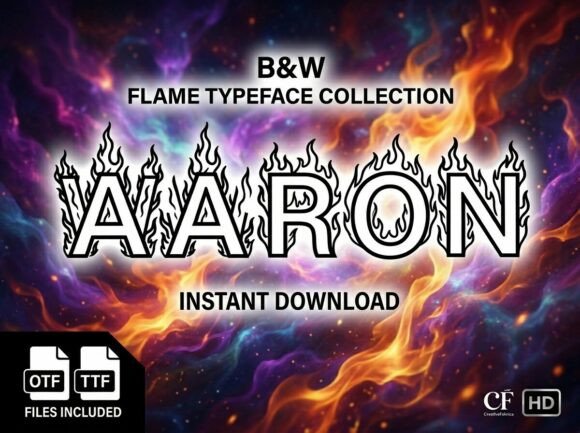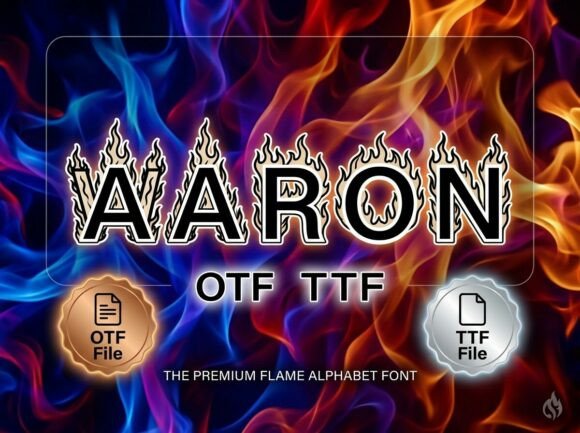
Ignite Your Designs with Aaron: The Ultimate High-Octane Display Font
In the world of typography, fonts play a crucial role in conveying the tone and personality of a brand or design. For designers and crafters looking to add a touch of intensity and energy to their work, Aaron Font is the perfect choice. This high-octane display font is engineered for pure intensity, making it ideal for extreme sports branding, independent rock tour posters, custom automotive graphics, and high-energy social media headers.
The Design Behind the Flame
Aaron Font features bold, blocky sans-serif letterforms that are engulfed in high-contrast, hand-drawn flickering flames. This unique design gives the font a “hot-rod-rebellion” soul that is sure to grab attention. The commanding silhouette of Aaron Font makes it perfect for designs that require a strong and powerful presence.
Key Features of Aaron Font
- Bold and Blocky Letterforms: The sans-serif letterforms of Aaron Font are designed to be bold and blocky, giving the font a rugged and edgy feel.
- High-Contrast Flames: The hand-drawn flickering flames that engulf the letterforms add a touch of intensity and energy to the font.
- High-Octane Performance: Aaron Font is engineered for pure intensity, making it perfect for designs that require a high-energy presence.
Use Cases for Aaron Font
Aaron Font is a versatile typeface that can be used in a variety of design applications. Here are some of the most popular use cases:
- Extreme Sports Branding: The bold and edgy design of Aaron Font makes it perfect for extreme sports branding, such as logos and merchandise for skateboarding, motocross, or BMX teams.
- Independent Rock Tour Posters: The “hot-rod-rebellion” soul of Aaron Font makes it a great choice for independent rock tour posters, adding a touch of energy and intensity to the design.
- Custom Automotive Graphics: The commanding silhouette of Aaron Font makes it perfect for custom automotive graphics, such as car decals or motorcycle designs.
- High-Energy Social Media Headers: Aaron Font is also great for high-energy social media headers, adding a touch of intensity and energy to your online presence.
Why Choose Aaron Font?
With so many fonts available, why choose Aaron Font? Here are just a few reasons:
- Unique Design: The hand-drawn flickering flames and bold, blocky letterforms of Aaron Font make it a truly unique and eye-catching typeface.
- High-Quality Performance: Aaron Font is engineered for pure intensity, making it perfect for designs that require a high-energy presence.
- Versatility: Aaron Font can be used in a variety of design applications, from extreme sports branding to custom automotive graphics.
If you’re looking to add a touch of intensity and energy to your designs, Aaron Font is the perfect choice. With its bold, blocky sans-serif letterforms and hand-drawn flickering flames, this high-octane display font is sure to grab attention. Whether you’re designing extreme sports branding, independent rock tour posters, custom automotive graphics, or high-energy social media headers, Aaron Font is the premier choice.
Get Ready to Ignite Your Designs